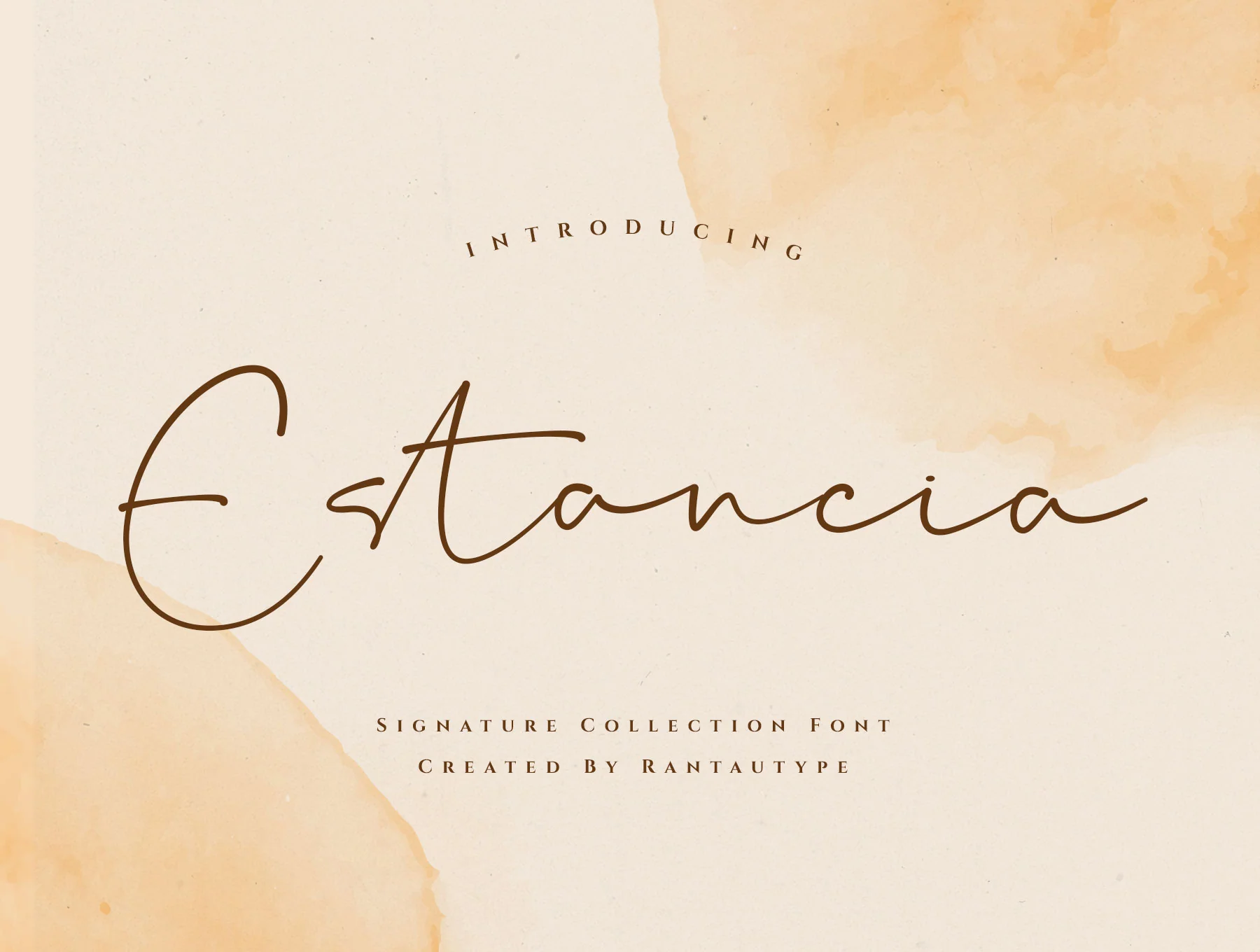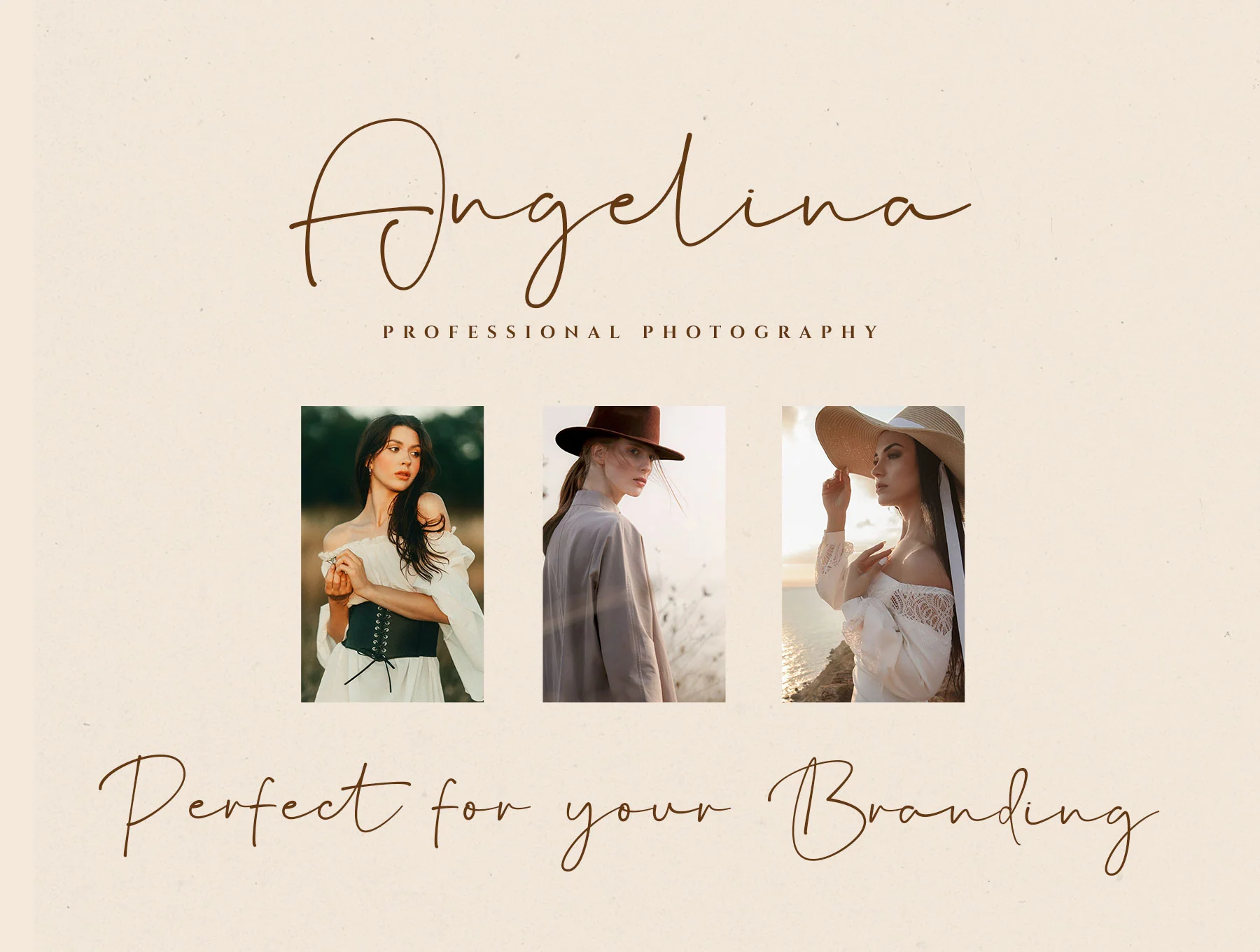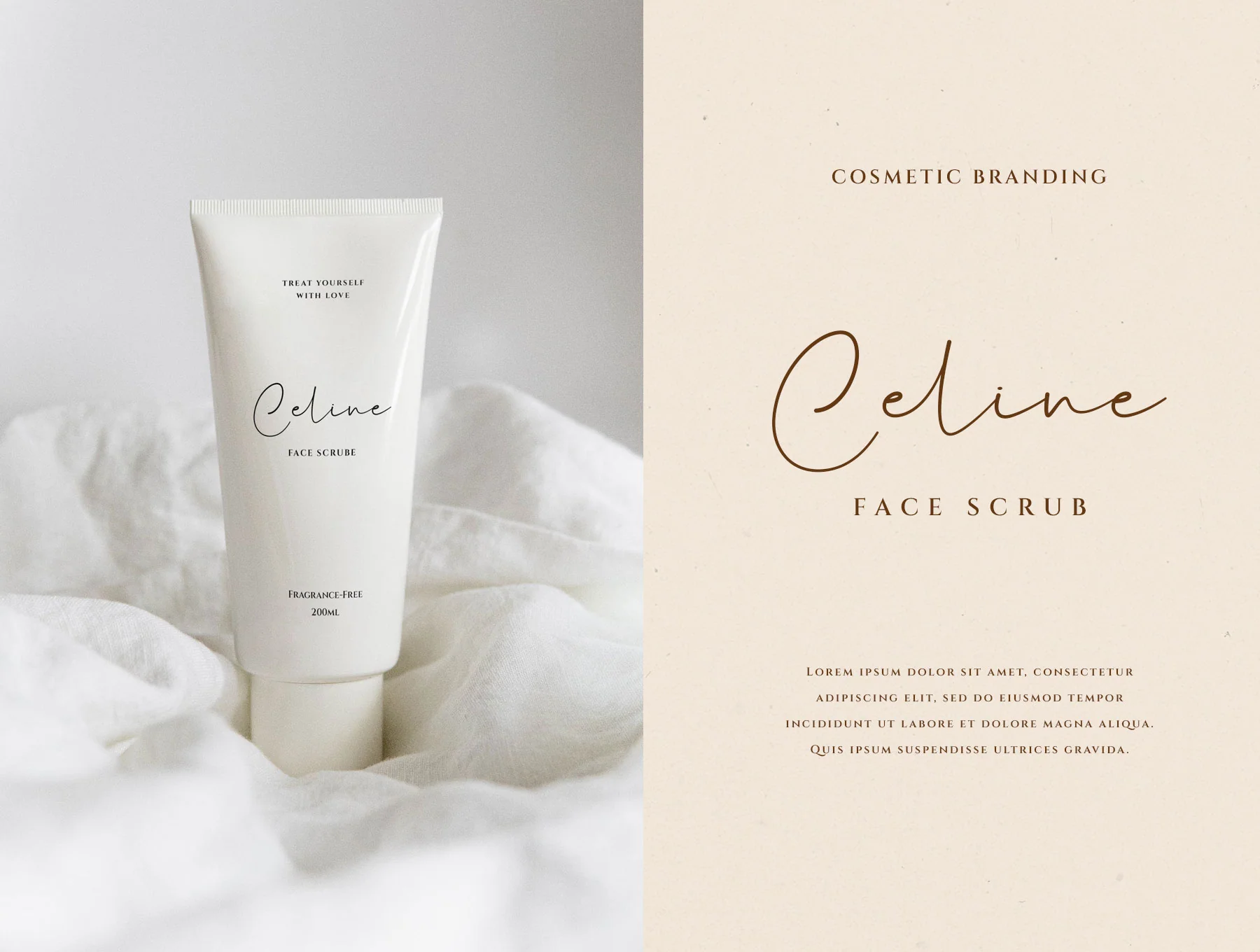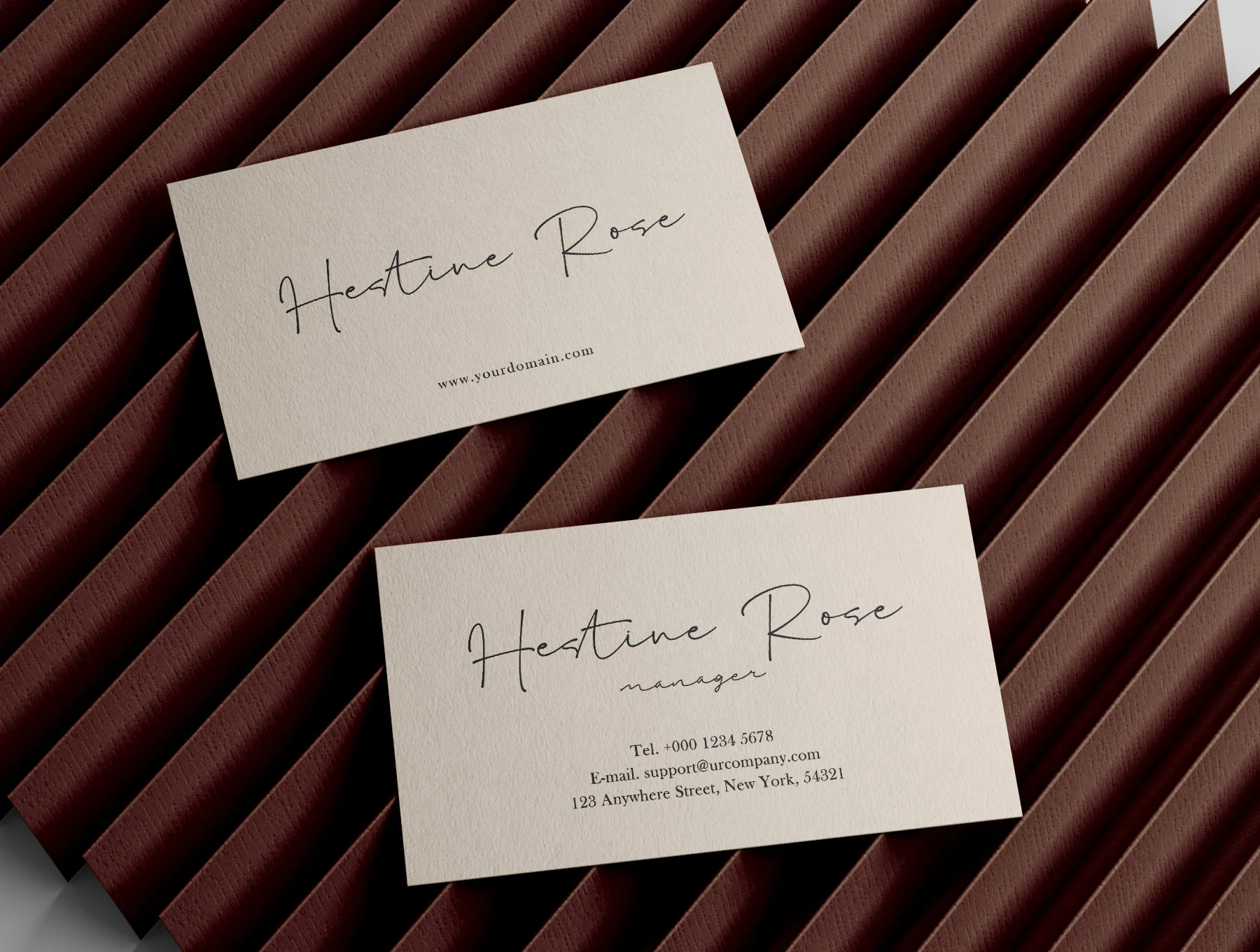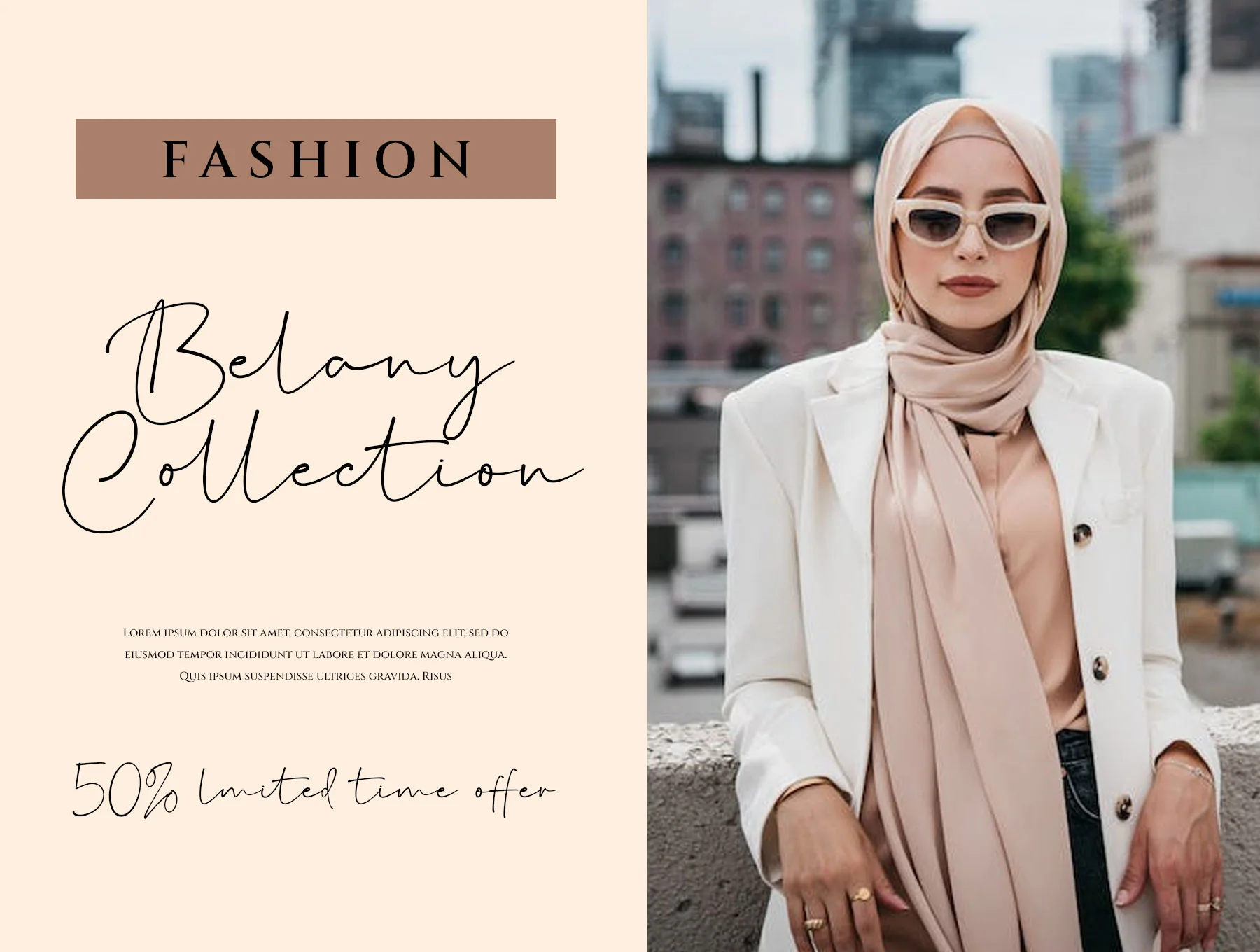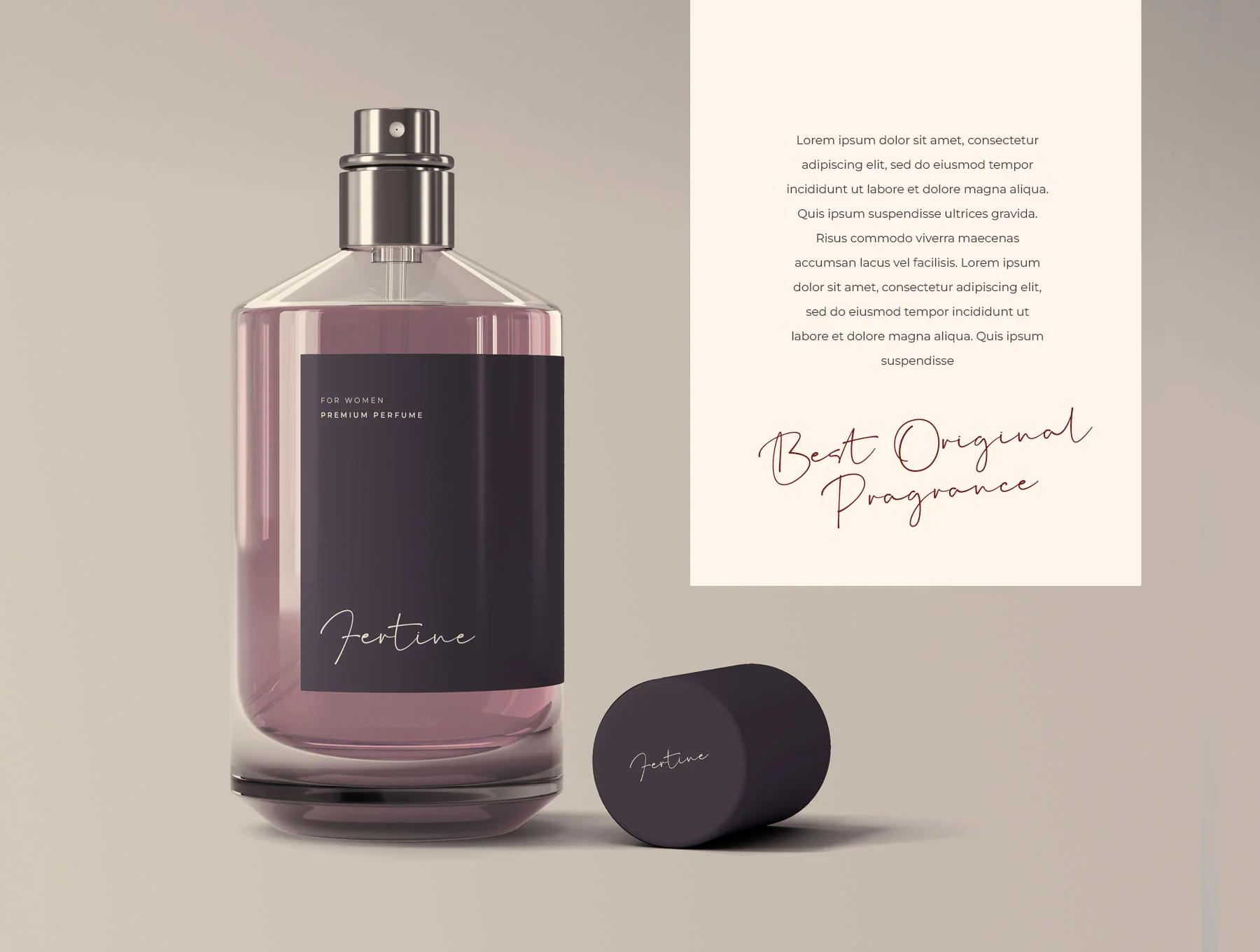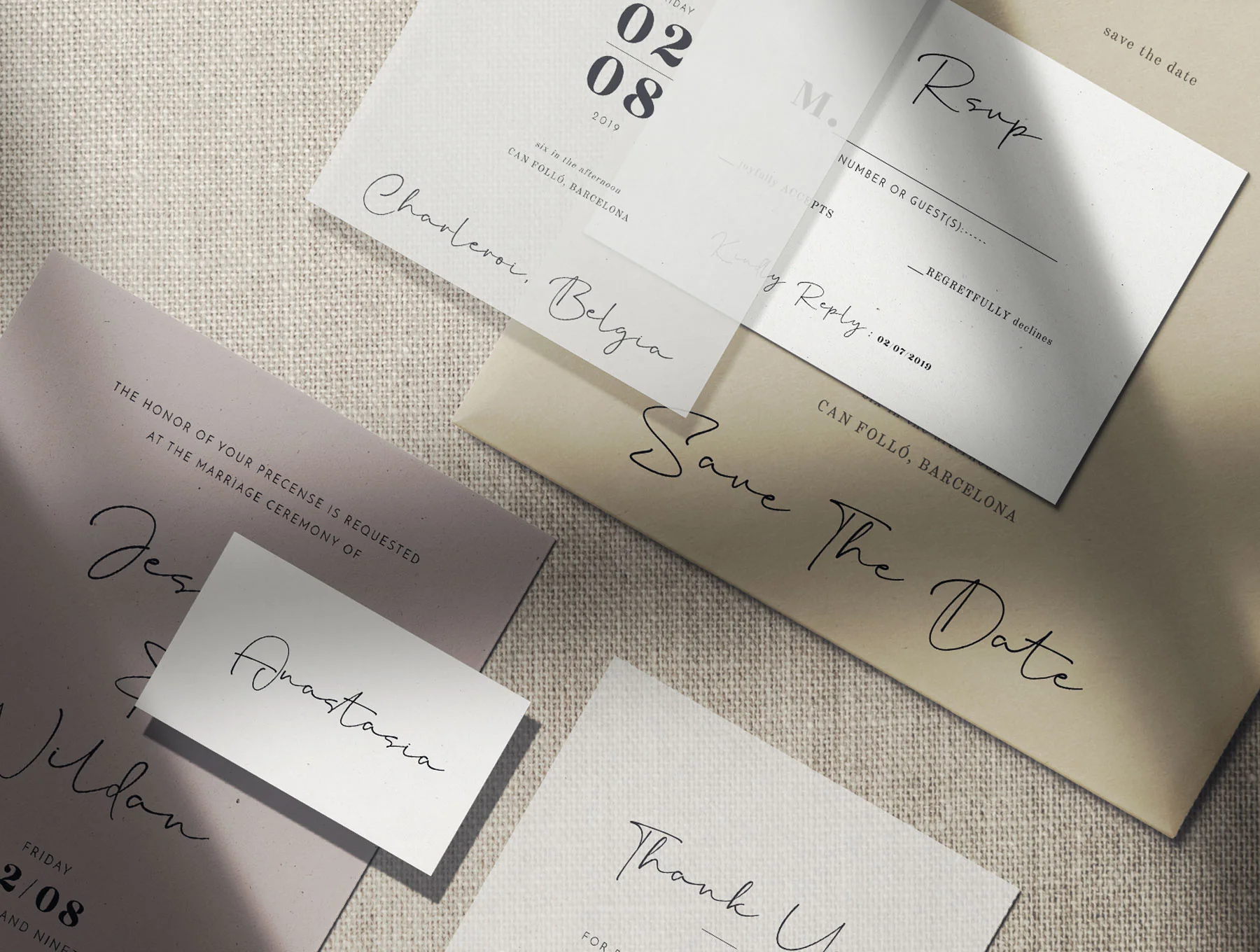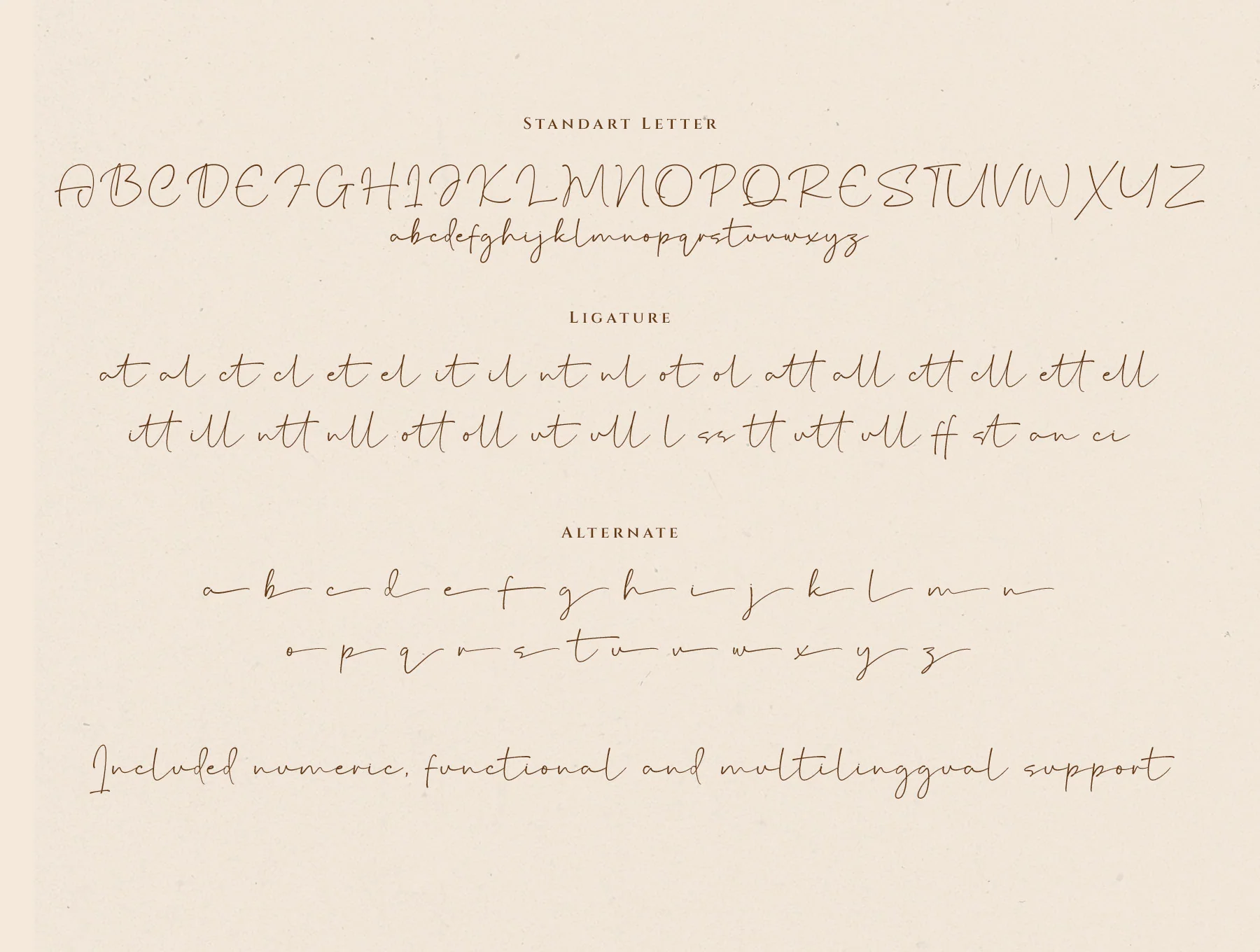
Estancia Elegant Signature Font
Stylish Signature Typeface
Standard uppercase and lowercase A–Z characters
Numerals and functional symbols
Ligatures and alternate glyphs
Estancia is a modern signature font with elegant natural curves, a clean minimalist feel, and strong readability. Ideal for logos, titles, photo watermarks, branding, magazines, weddings, quotes, album covers, business cards, and more. Includes A-Z/a-z, numbers, symbols, alternates, ligatures, multilingual support, plus OTF, TTF, and WOFF files.